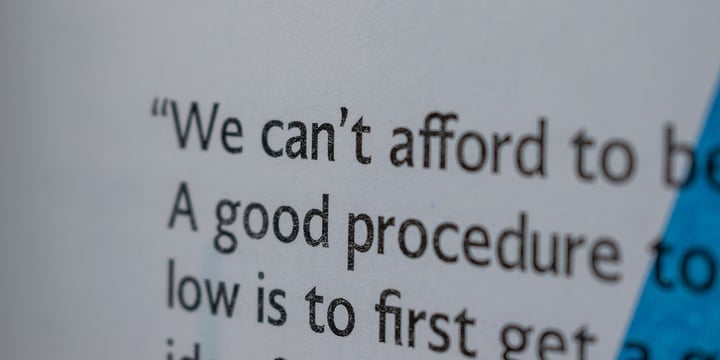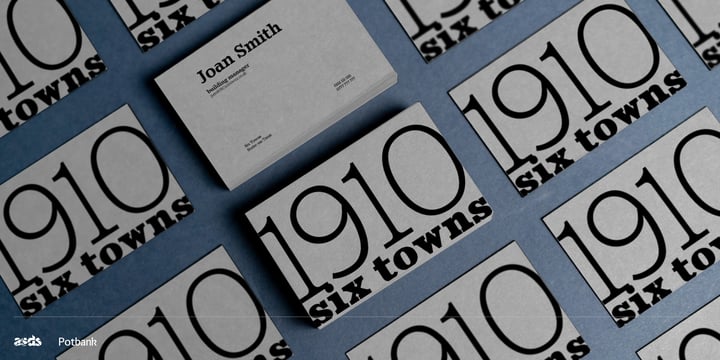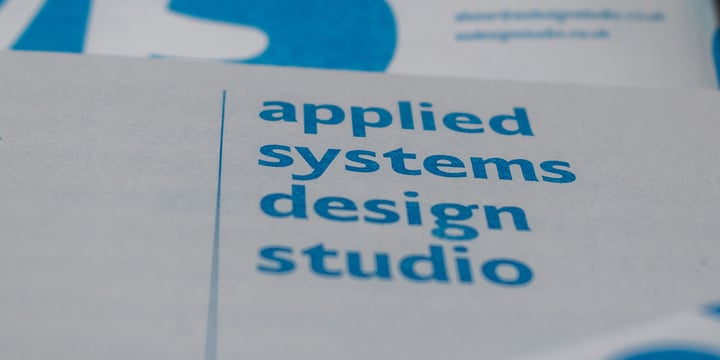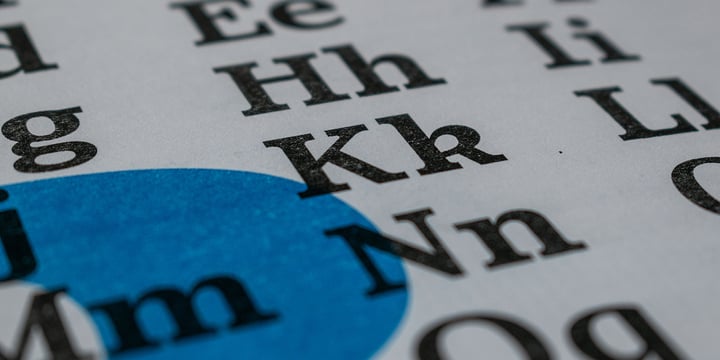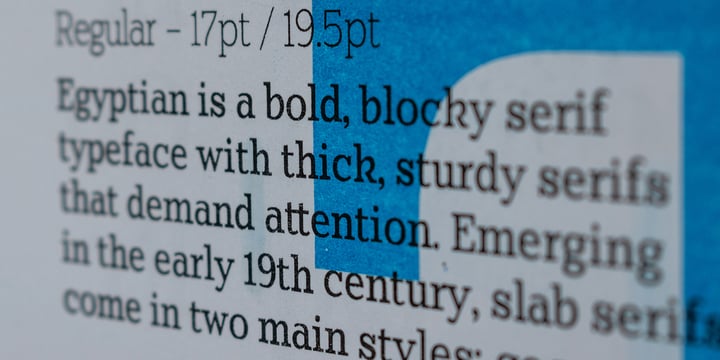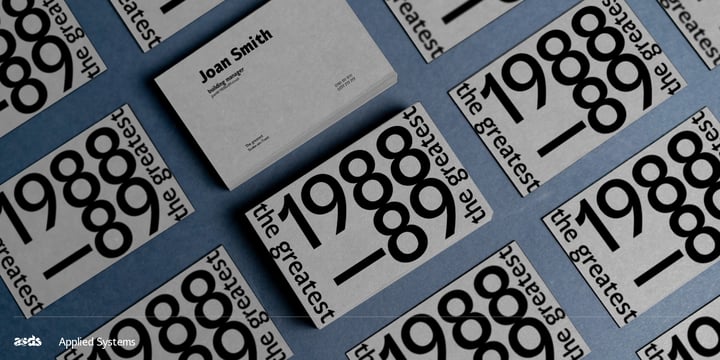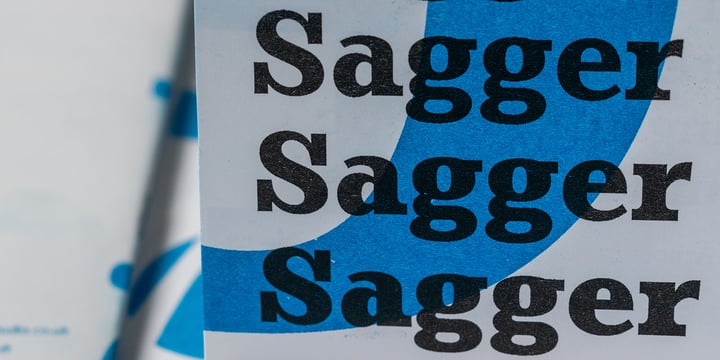
25A asds newsletter bundle
Introducing our 25A biannual newsletter fonts bundle, featuring the first two fonts crafted for commercial release: Applied Systems, a humanist sans serif, and Potbank, a slab serif. Both fonts draw inspiration from heritage pieces, including early 1900s sans serif hand drawings and ceramics discovered in abandoned factories in Stoke-on-Trent. Each font boasts a generous x-height, ensuring readability while maintaining a distinctive character. Ideal for branding and editorial design, these fonts shine in print, making them a perfect choice for your next project.